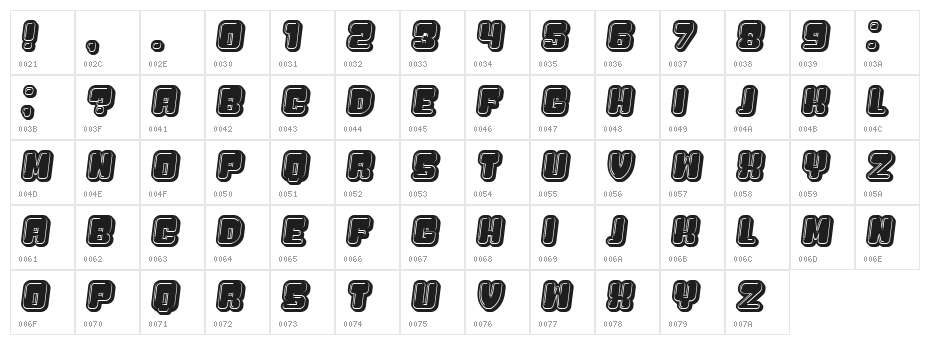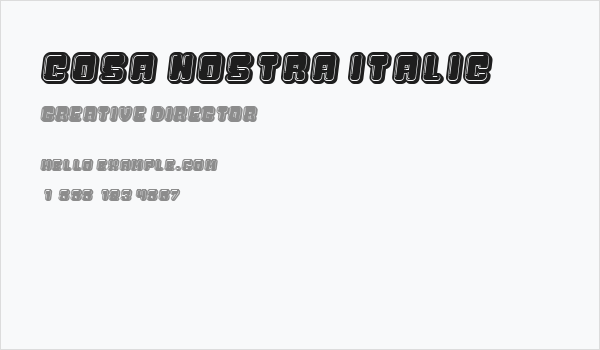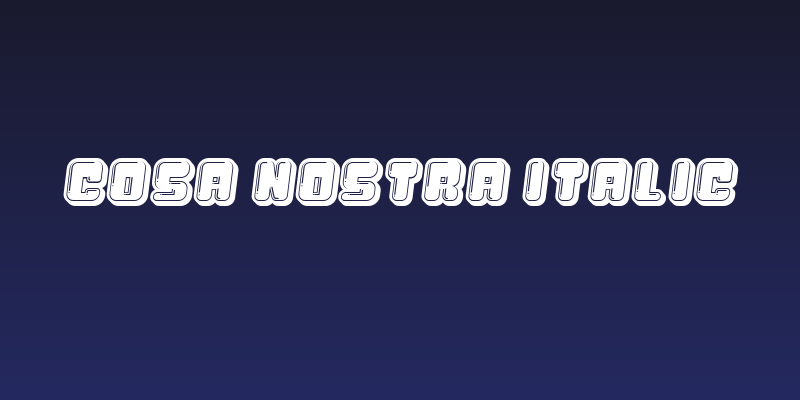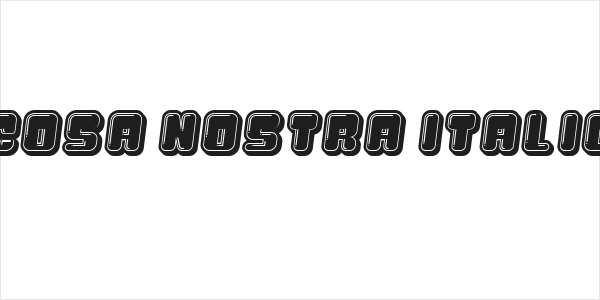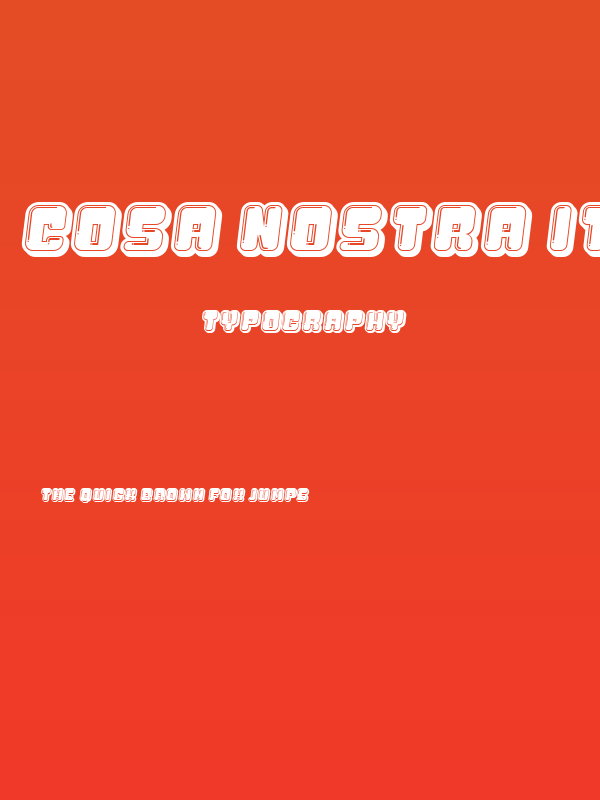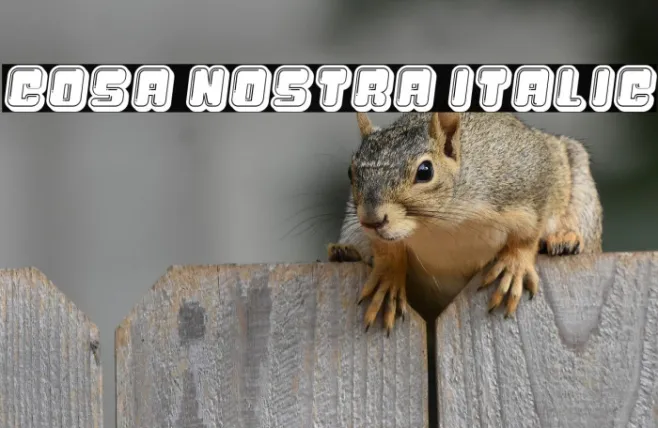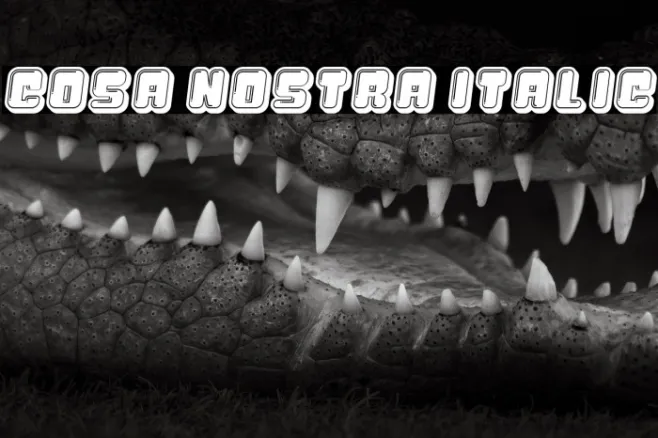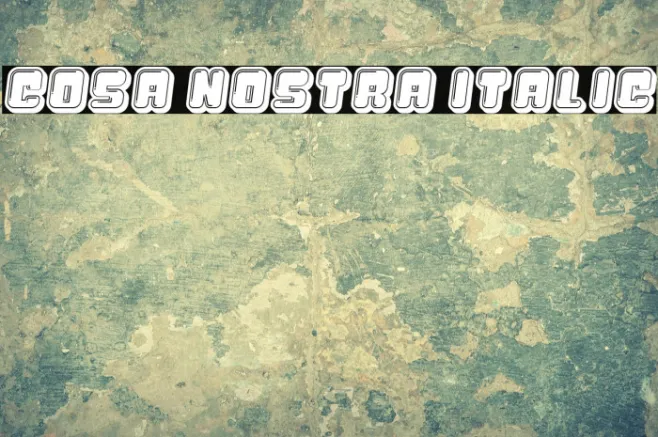
Cosa Nostra Italic Font
Cosa Nostra Italic Description
This font features a bold, italicized style with a strong, impactful presence. The characters are outlined with a thick black border, giving them a three-dimensional effect. The interior of each letter is filled with a solid color, enhancing the boldness. The font has a modern, decorative appeal, making it suitable for eye-catching designs. The uppercase and lowercase letters maintain a consistent style, with rounded edges and a slight slant, adding to the dynamic appearance. Numbers and special characters follow the same design principles, ensuring uniformity across all elements.
| Proposed Projects | Ideal for posters, logos, headlines, and any design requiring a strong visual impact. |